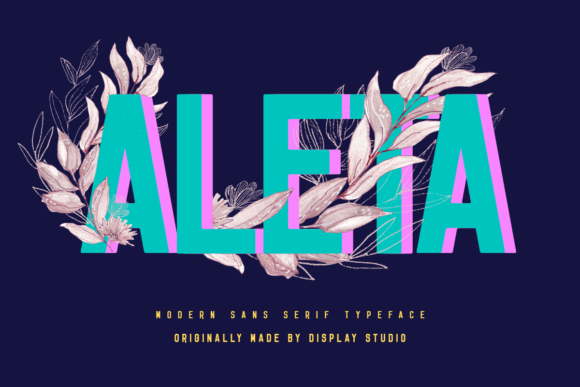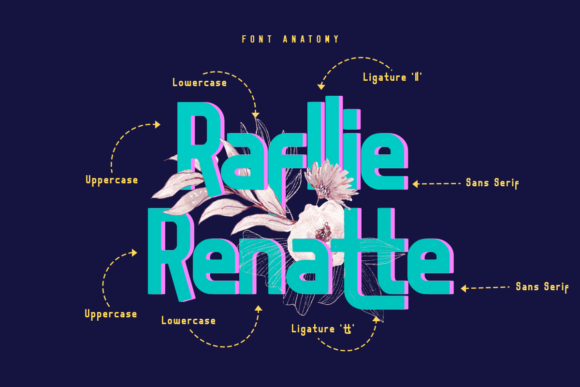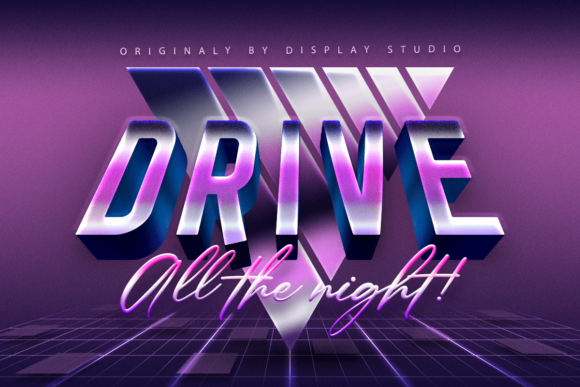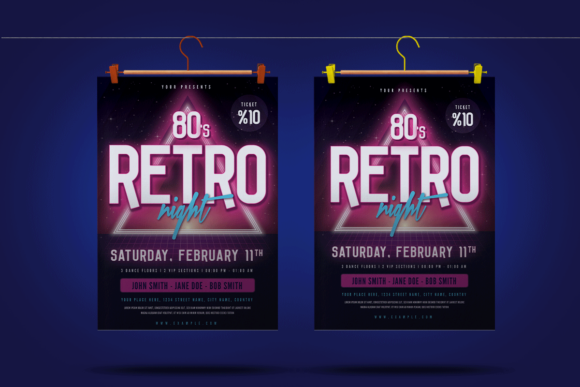
Aleta Font: Bold Vintage Sans Serif for Modern Logo Design
About the Aleta Font
Explore the possibilities with Aleta Font, a font that offers both beauty and functionality. Aleta is a bold and vintage styled sans serif font. Whether you’re using it for crafts, digital design, presentations, or making greeting cards, this font has the potential to become your favorite go-to font, no matter the occasion!
Aleta’s bold vintage styling makes it ideal for headlines, short impactful statements, logos, and posters. It works exceptionally well in branding for products emphasizing retro aesthetics or a strong, confident image. Avoid using Aleta for body text or long paragraphs; its bold weight can quickly become fatiguing to read at smaller sizes.
Pairing Aleta effectively requires consideration of its strong personality. A classic serif like Garamond or a clean sans-serif like Helvetica Neue can create a balanced and sophisticated look. For a more playful feel, consider pairing it with a script font like Pacifico, but use it sparingly as a supporting element.
Aleta projects a bold, retro-modern personality. It’s perfect for brands aiming for a vintage-inspired yet contemporary feel, suggesting both heritage and innovation.
Aleta Font Usage Examples
Aleta Font Example